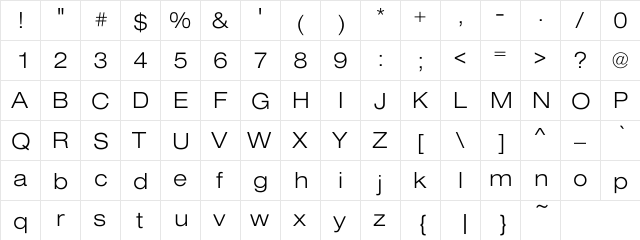
Sans Light Extended Regular
Design Context for Sans Light Extended Typeface
Sans Light Extended takes a measured approach to typography — its balanced proportions and neutral character make it a reliable workhorse for both digital and print work. The delicate stroke weight brings airiness and refinement to layouts.